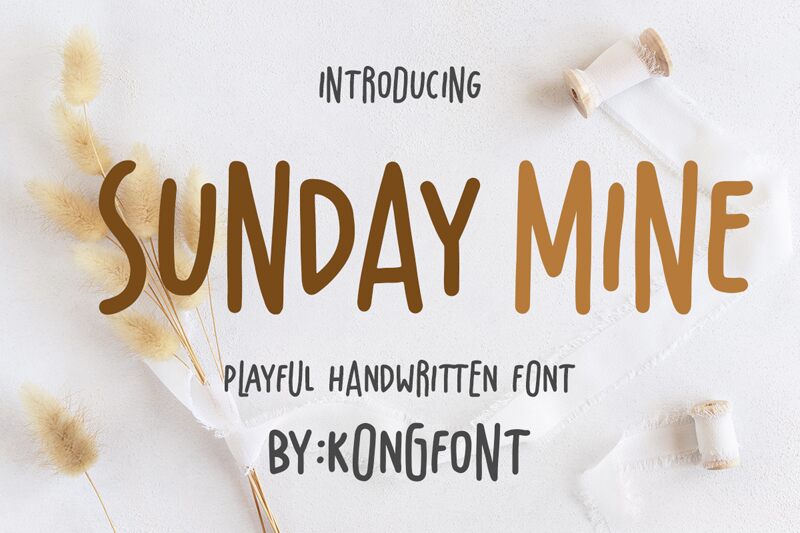
Sunday Mine font, designed by Kong Font, embodies a vibrant comic style that is both playful and engaging. Its condensed form lends a unique character, making the letters appear lively and energetic. The bold strokes draw attention while maintaining a lighthearted essence, ideal for creating a cheerful atmosphere in any design project.
Visually striking and brimming with personality, Sunday Mine is perfect for children's books, playful branding, posters, or any creative endeavor that calls for whimsical flair. Whether used for headlines or decorative elements, this font captures attention effortlessly and adds a delightful touch to any visual narrative. Embrace the charm of Sunday Mine to infuse your designs with joy and creativity.